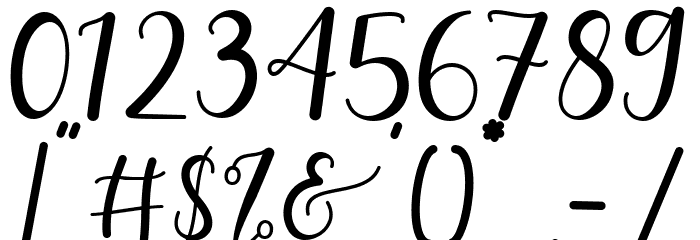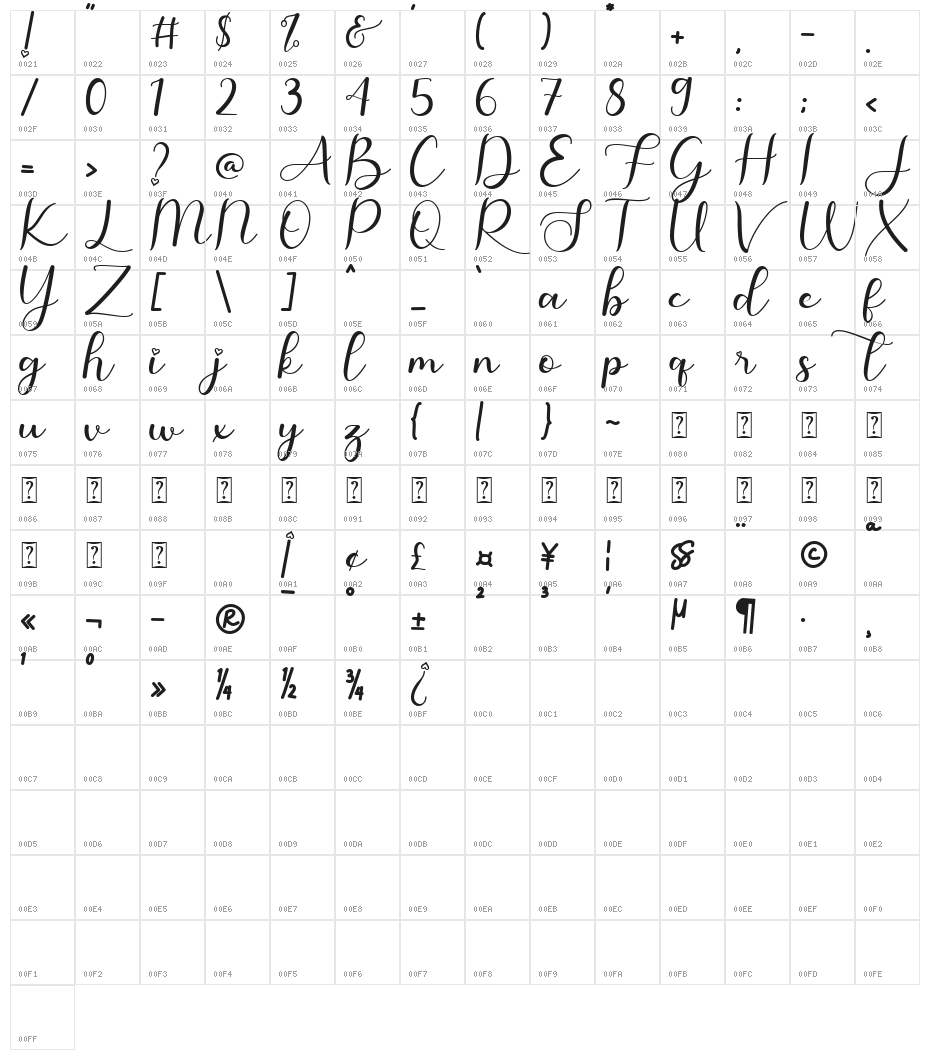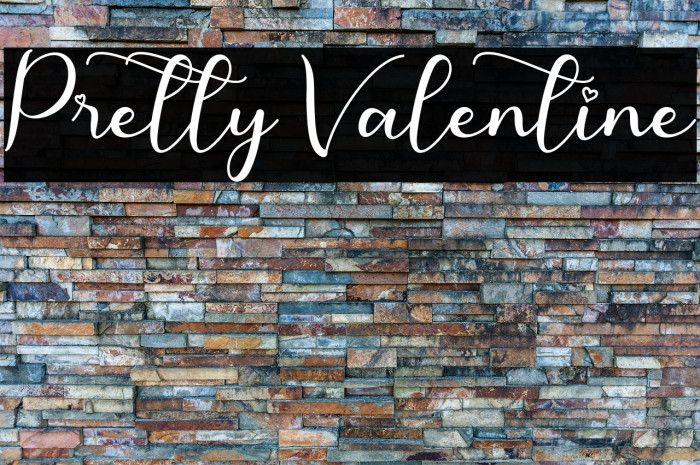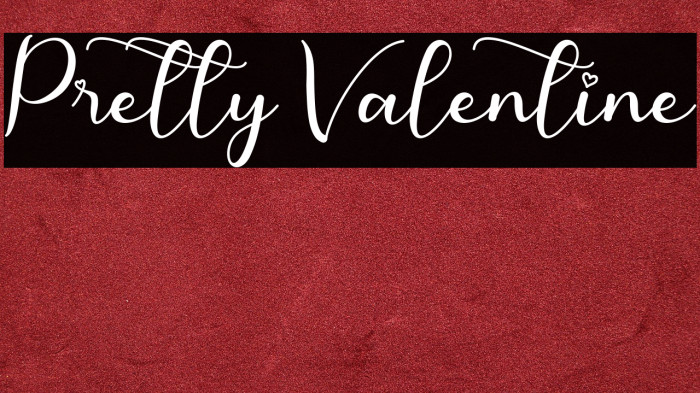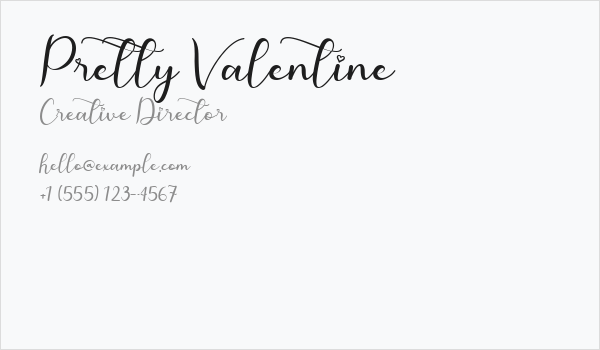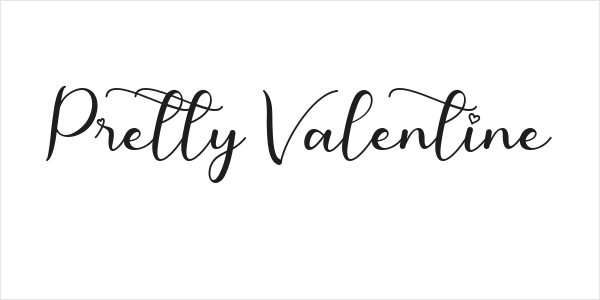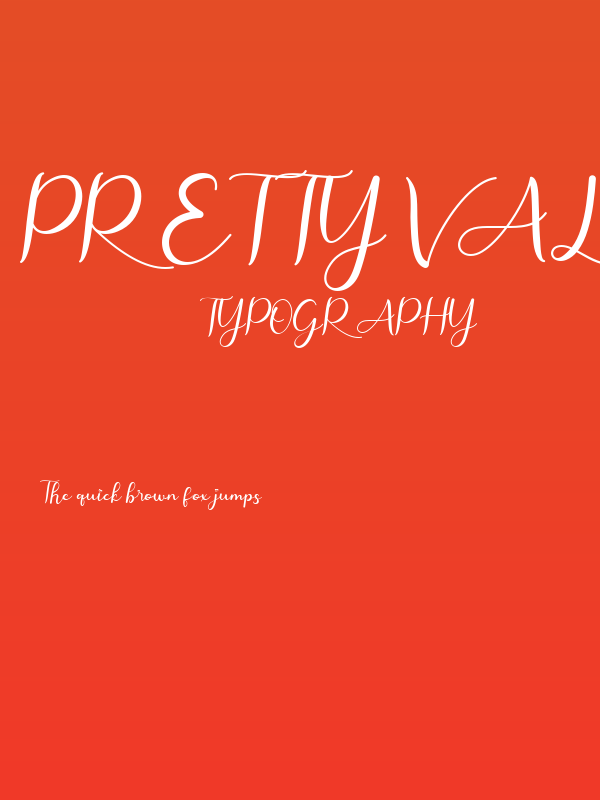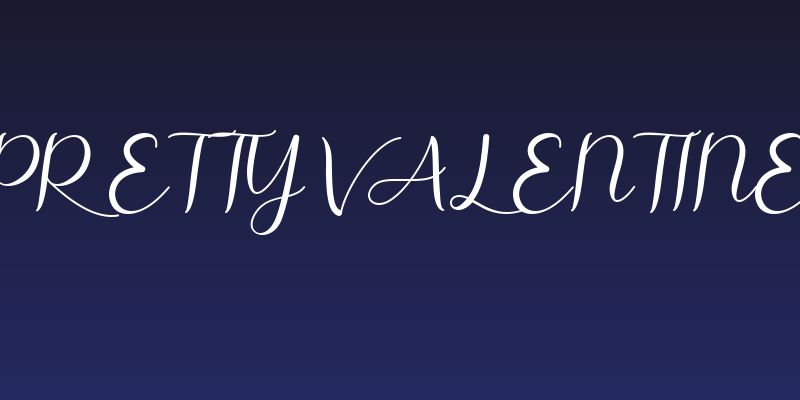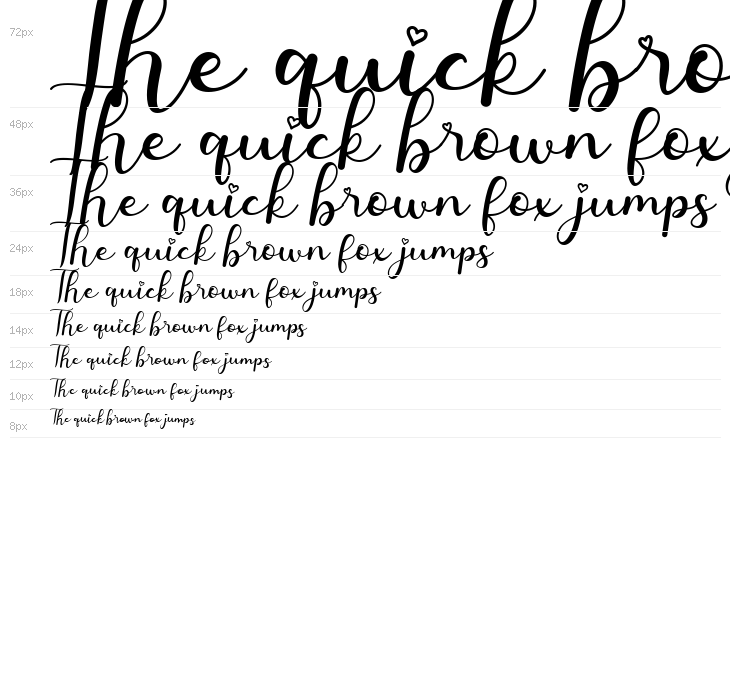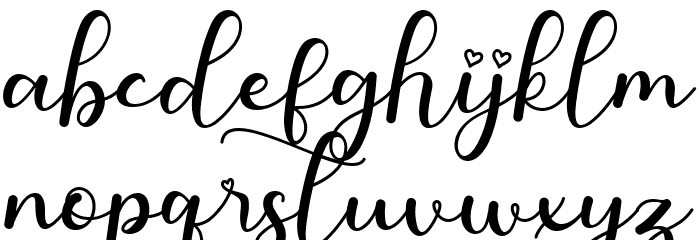
Pretty Valentine Font
Pretty Valentine Description
This font exudes a romantic and whimsical charm, characterized by its flowing script style. The uppercase letters are elegant and slightly elongated, with gentle curves and loops that add a touch of sophistication. The lowercase letters are more playful, featuring heart-shaped accents on certain characters, which enhance its romantic appeal. The numbers are consistent with the overall style, maintaining a balance between elegance and readability. Special characters are thoughtfully designed, integrating seamlessly with the rest of the font. This font is perfect for projects that require a personal and heartfelt touch.
| Overall Style | Romantic |
| Use Case | Headlines, Invitations, Greeting Cards |
| Proposed Projects | Ideal for wedding invitations, greeting cards, love letters, and branding projects that require a personal touch. |